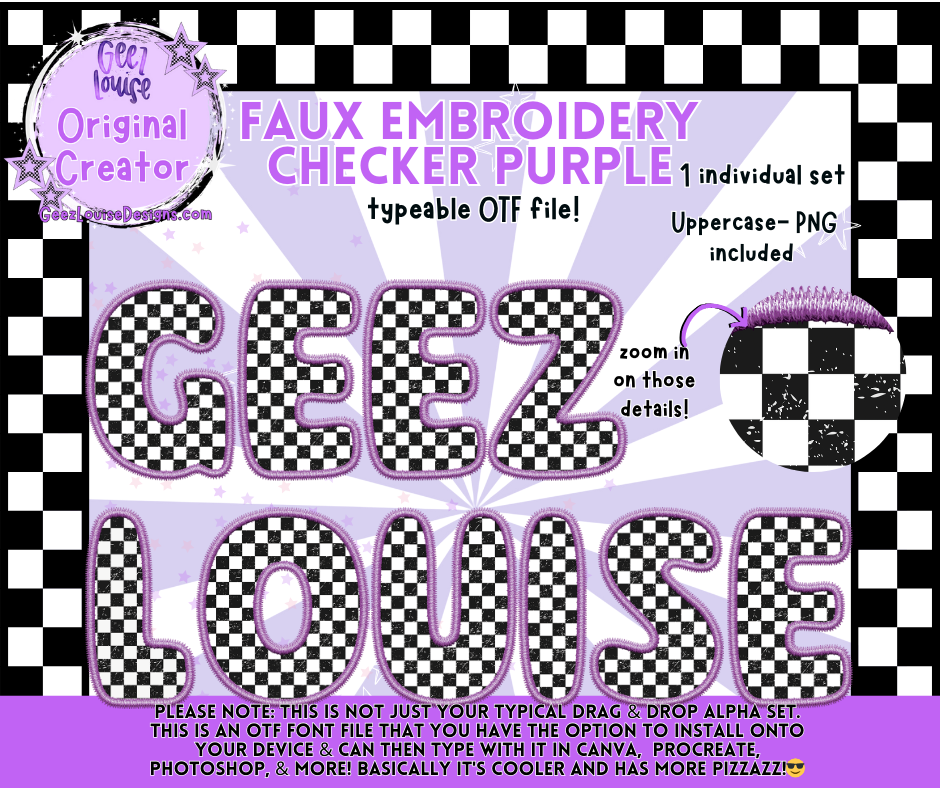
Faux Embroidery Checker Purple OTF Font | PNG Alpha Set
Add a bold, punk-inspired vibe to your projects with the Faux Embroidery Checker Purple OTF Font. This typeable font features a black-and-white checkerboard pattern with a stitched purple outline for that edgy, embroidered look.
With its bold contrast and grungy-cute vibe, this font is perfect for sports designs, holiday projects, branding, or statement graphics that need to pop.